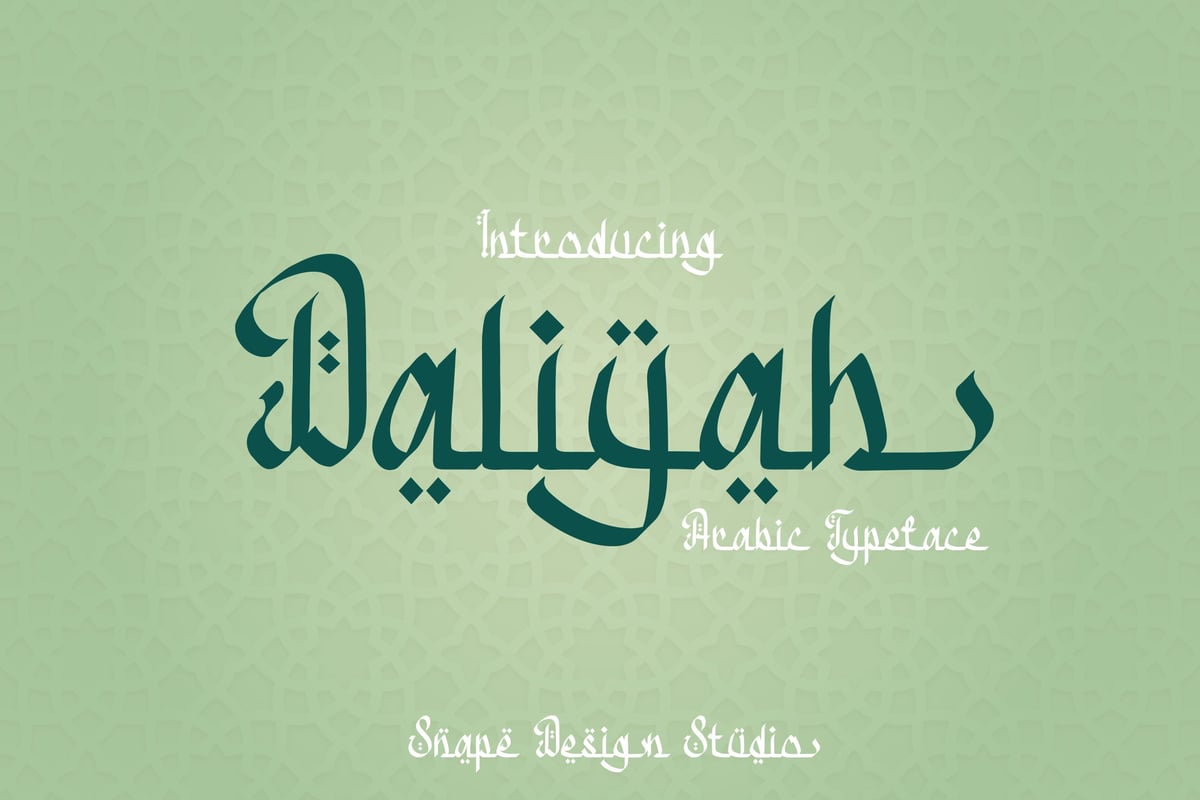
Daliyah - Arabic Typeface
Bring authentic Middle Eastern elegance to your designs with this stunning Arabic-inspired display font. Daliyah captures the distinctive style and cultural essence of traditional Arabic typography, making it perfect for projects that need an authentic Middle Eastern aesthetic. This decorative typeface adds sophisticated cultural flair to any creative work. Ideal applications include: Movie titles and film credits Documentary projects Logo and brand design Poster and advertising design Book cove...